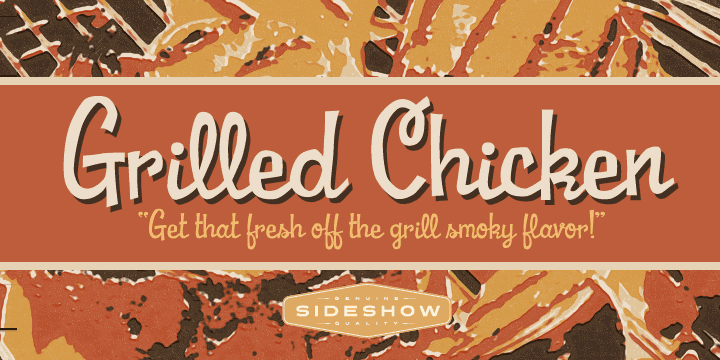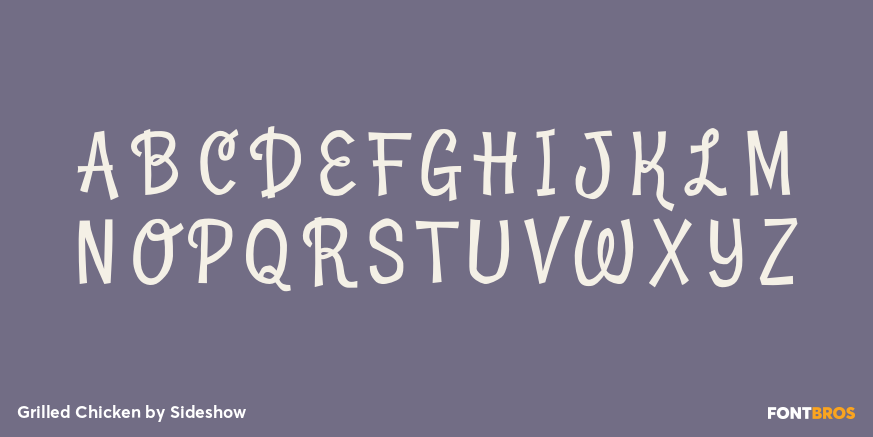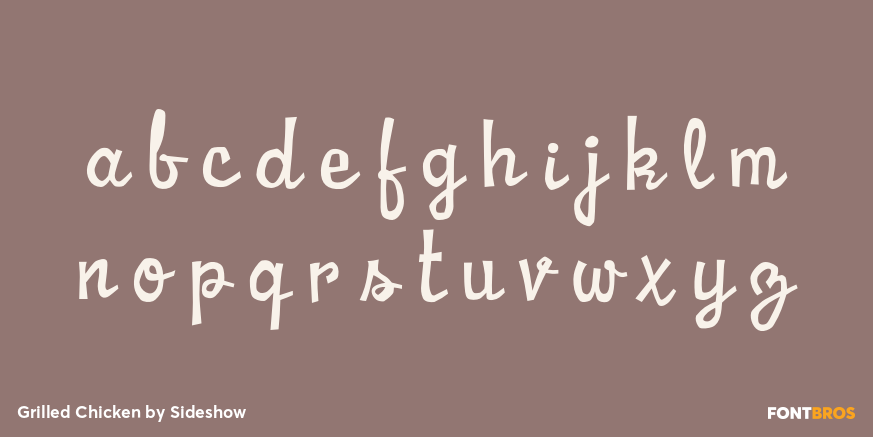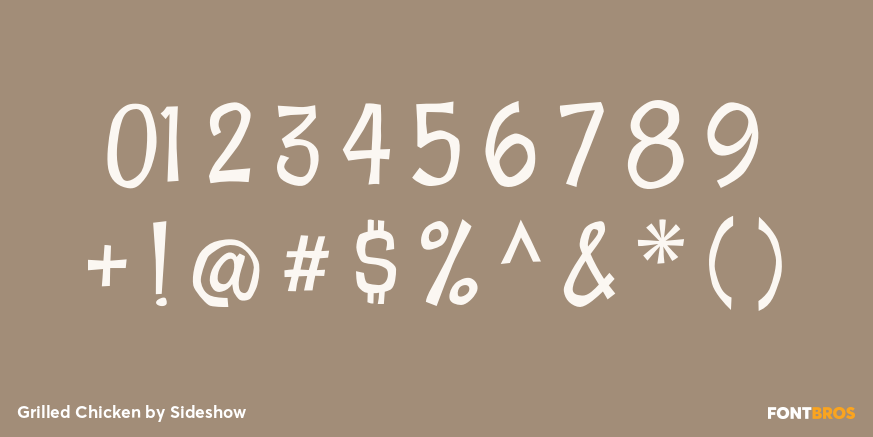
Grilled Chicken
Font Family by Sideshow
Grilled Chicken, that's what's kickin'! A healthy alternative to those 'All breading, no meat' scripts. It's pure, free-range fun and oh so tasty! Served up fresh from Squid and Sideshow.